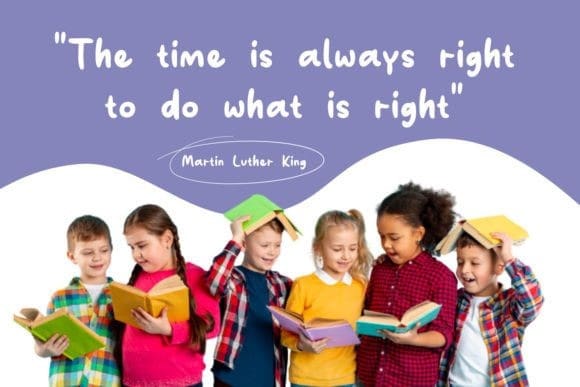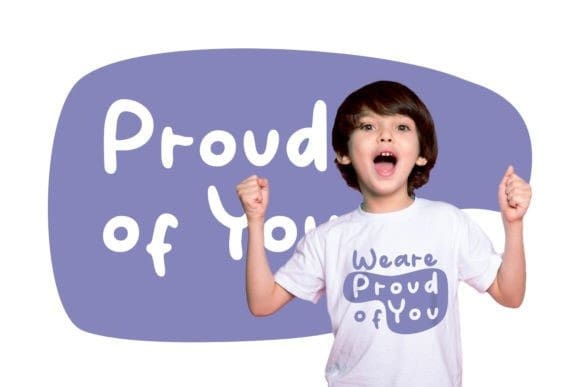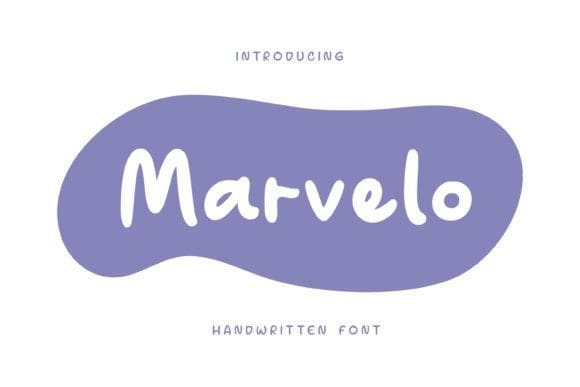
Marvelo Hand Font
Marvelo Hand Font is a comic display font that is fun and clean. It is suitable for use on quotes, displays, logos, branding, social media post, advertisements, product packaging, product designs, labels, photography, watermarks, invitations and more.